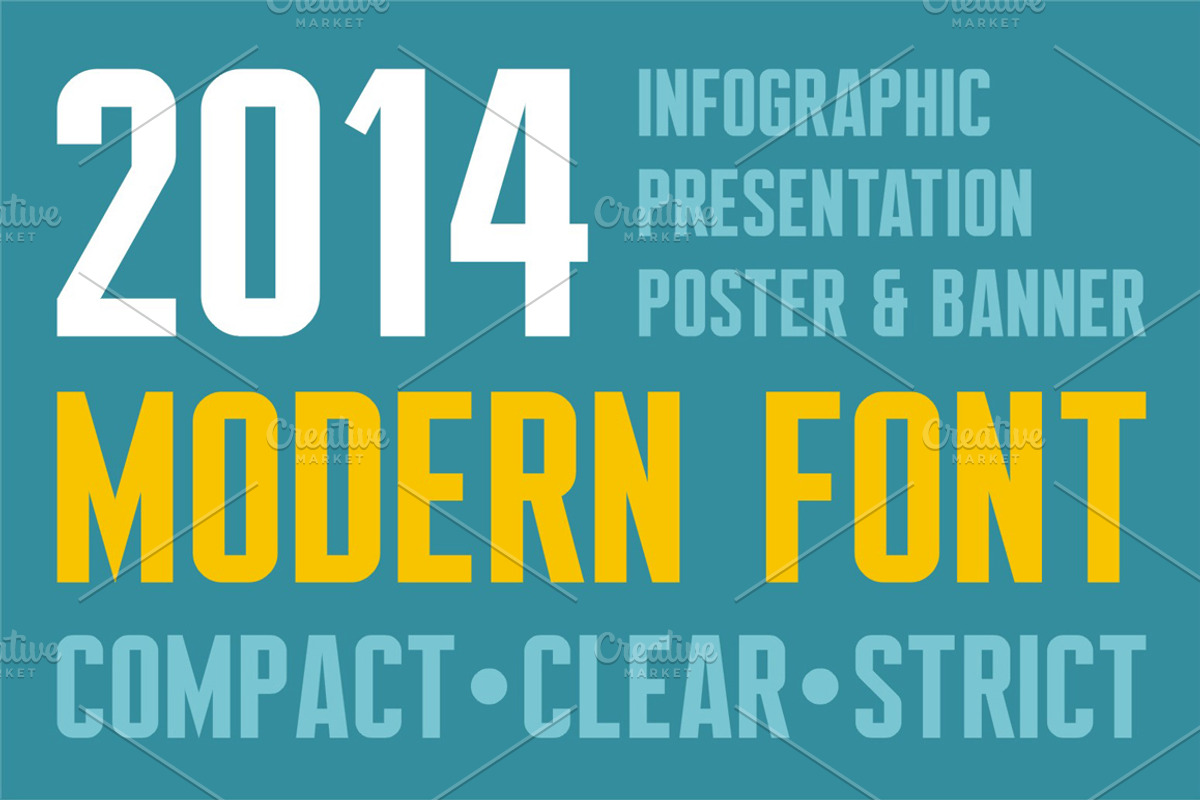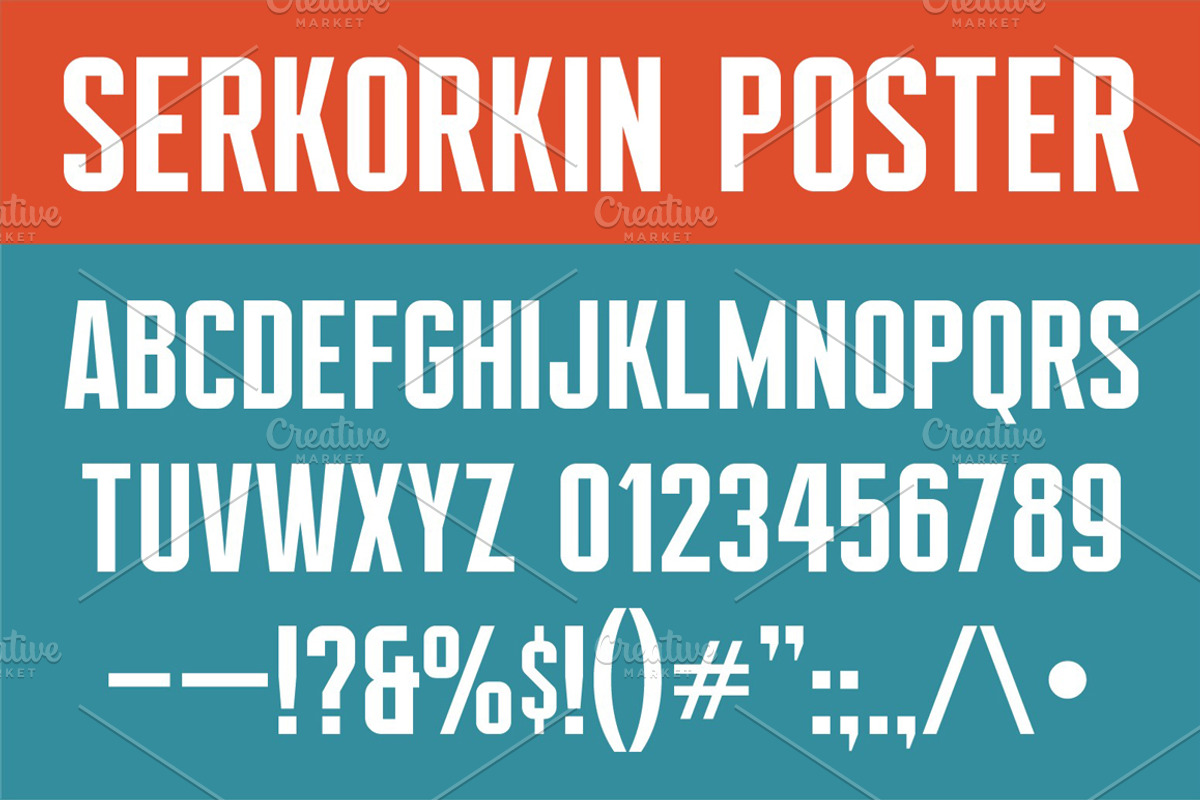
Serkorkin Poster Font
Serkorkin Poster Font by serkorkin is a font selected for branding, posters, packaging, typography.
Why Serkorkin Poster Font is worth a look
Serkorkin Poster Font by serkorkin fits naturally into Branding, posters, packaging, typography.